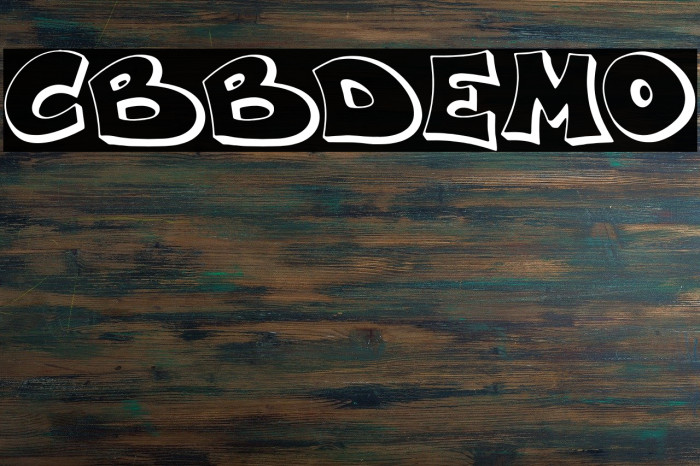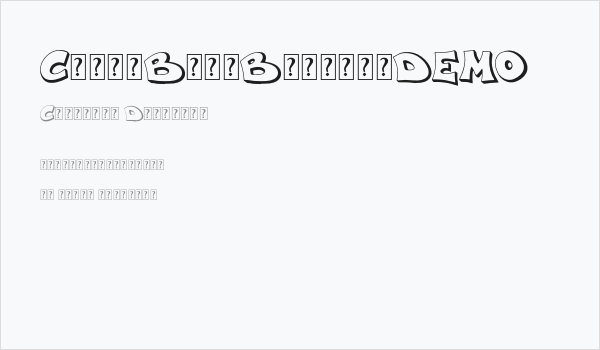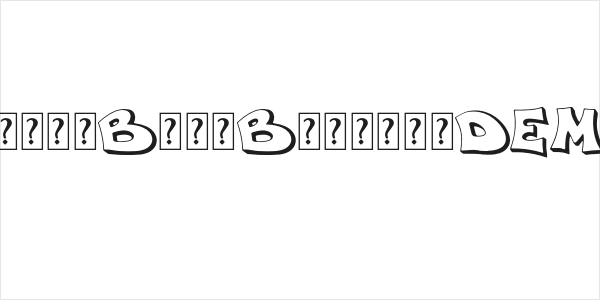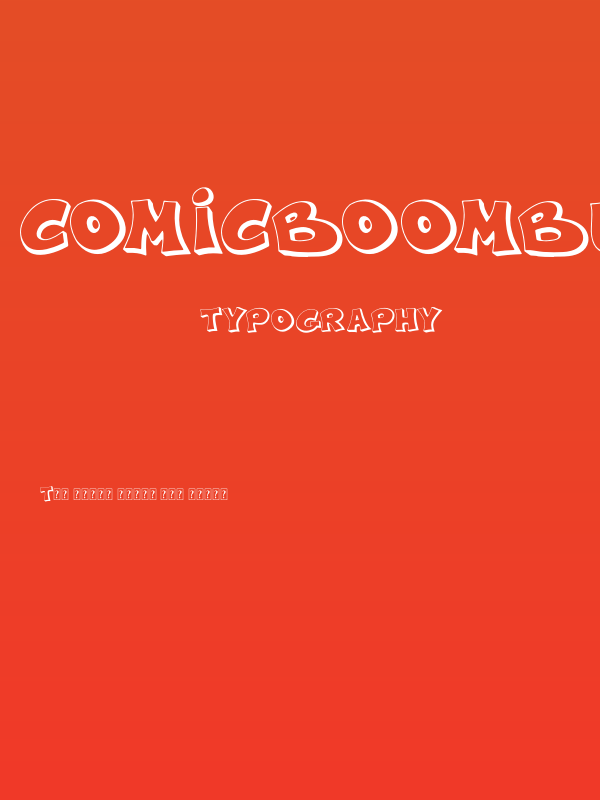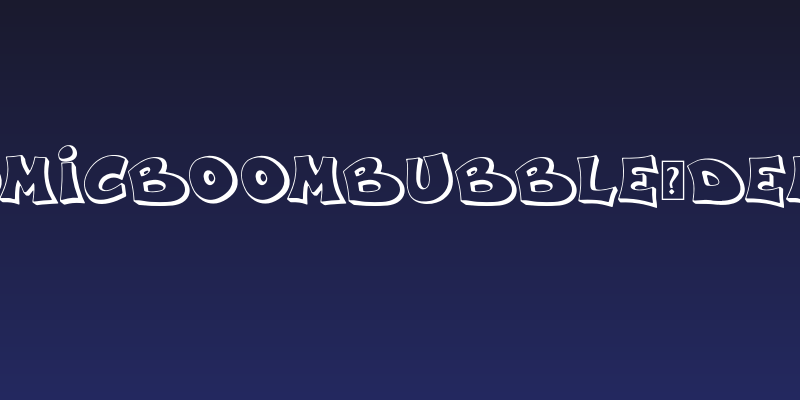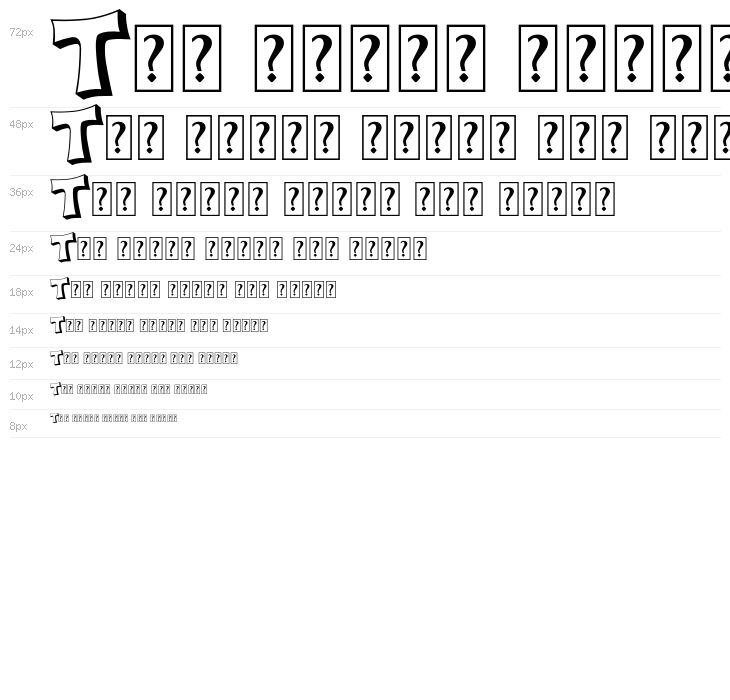
ComicBoomBubble_DEMO Font
This font features bold, playful characters with a comic book style, characterized by thick outlines and exaggerated curves. The uppercase letters exhibit a dynamic and energetic feel, making them ideal for attention-grabbing headlines or playful designs. The font's style is reminiscent of classic comic book lettering, with a modern twist that adds a sense of fun and creativity. The bold strokes and unique character shapes make it stand out, while maintaining readability.
| Overall Style | Modern, Comic |
| Proposed Projects | Ideal for comic books, children's books, playful branding, posters, and any project requiring a fun, energetic typeface. |